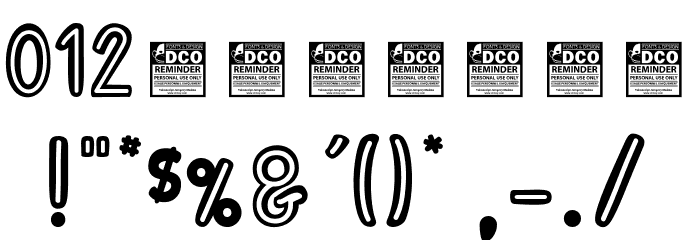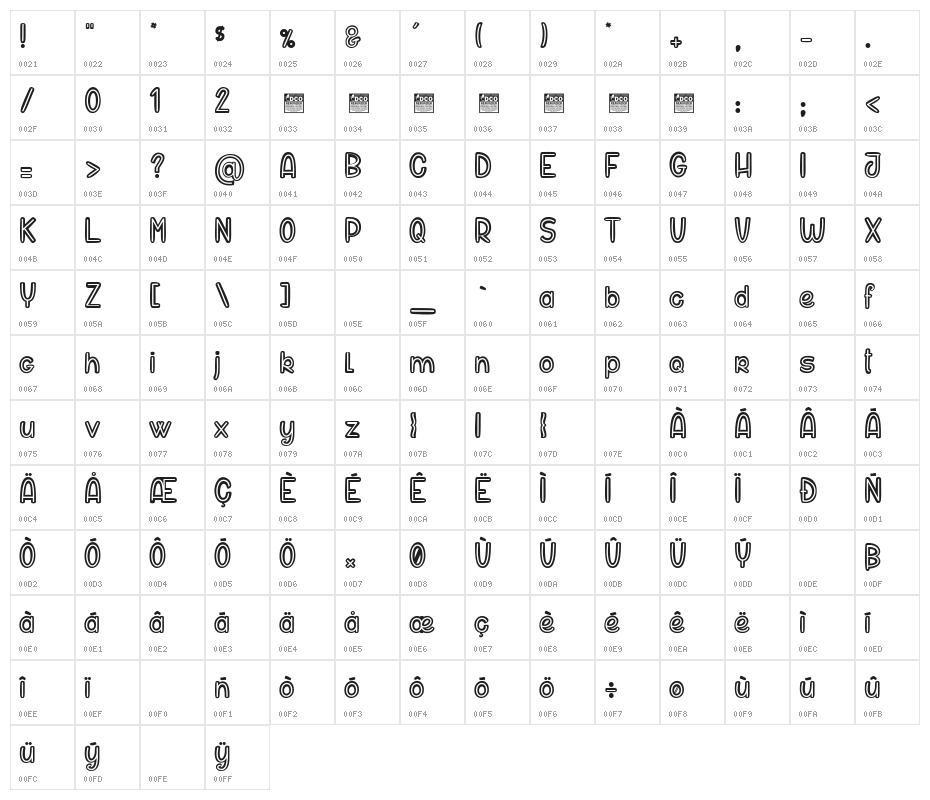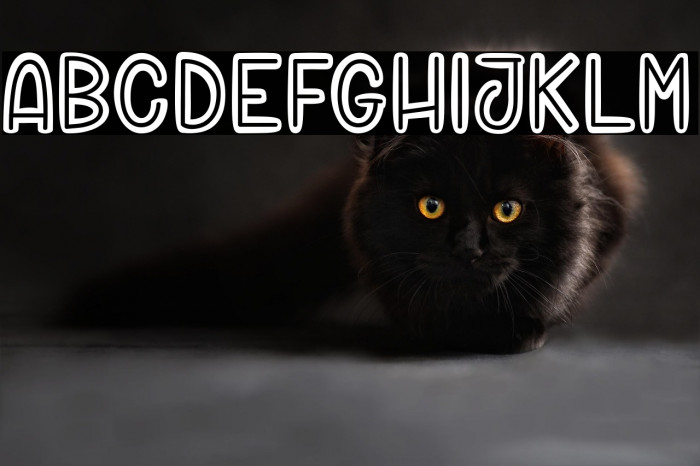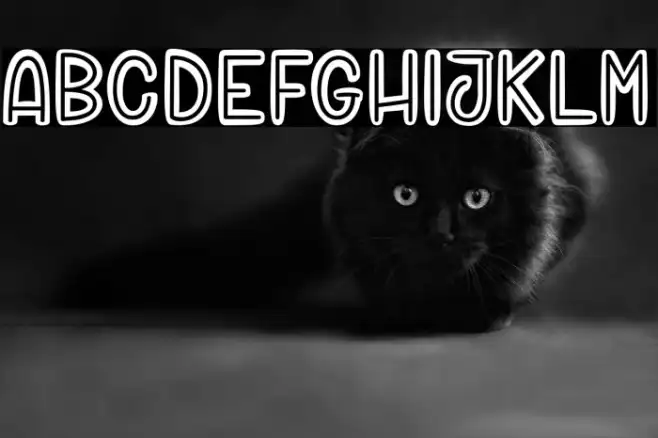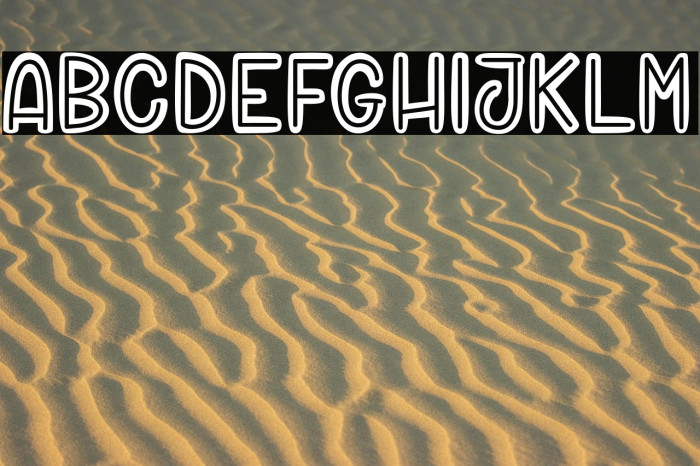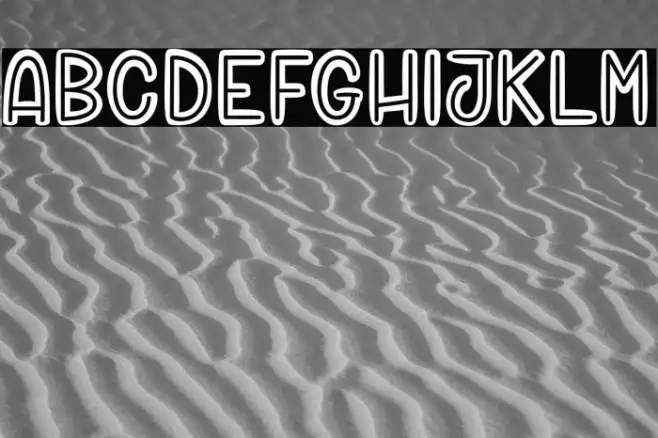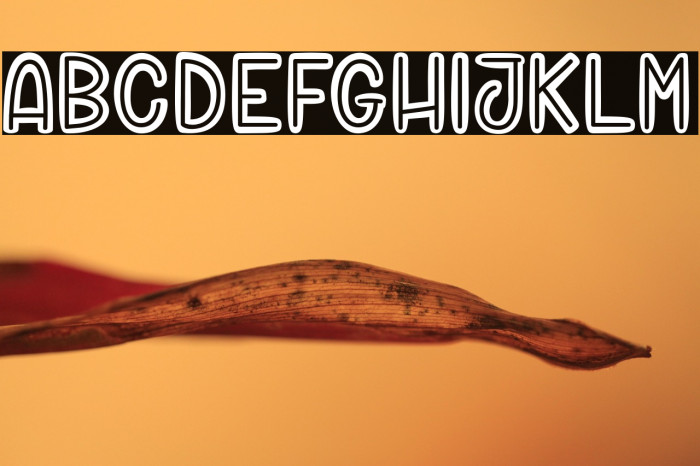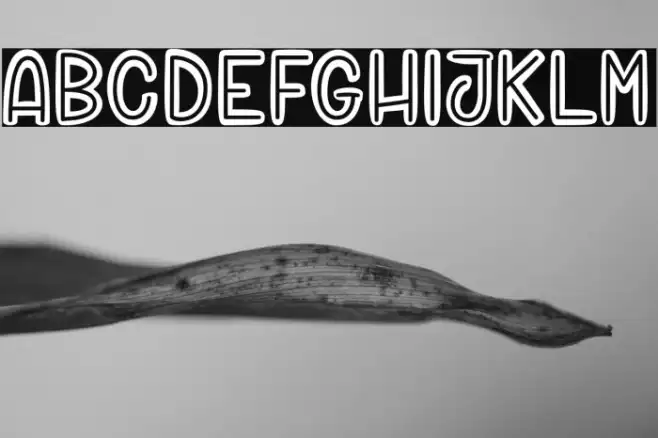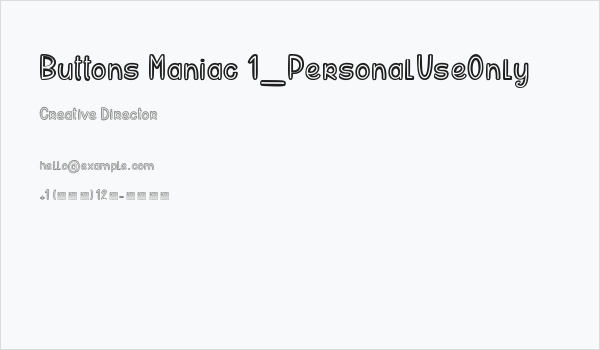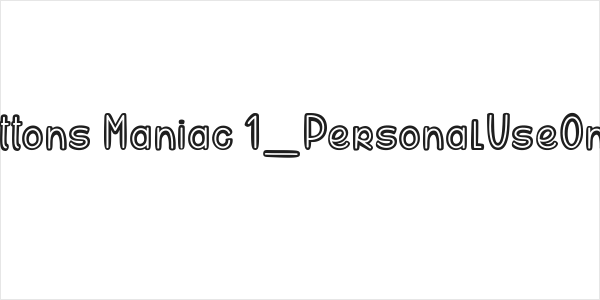
Buttons Maniac 1_PersonalUseOnly Font
Buttons Maniac 1_PersonalUseOnly Description
This playful and bold font features a unique outline style that gives each character a bubble-like appearance. The letters are rounded and have a consistent thickness, creating a cohesive and friendly look. The uppercase and lowercase letters maintain a uniform style, with the uppercase being slightly taller and more prominent. The numbers and special characters are designed to match the playful aesthetic, making them suitable for creative and informal projects. This font's distinct style makes it ideal for eye-catching designs that require a touch of whimsy.